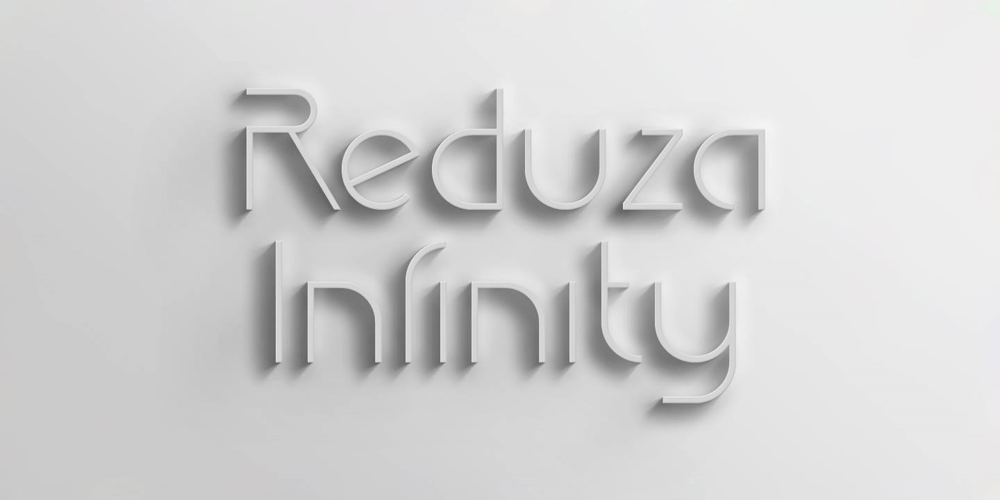
Reduza Infinity Font Family was designed by Leonhard Katschner and published by Brave Type. Reduza Infinity contains 1 styles and family package options. Reduza Infinity is a modern and futuristic font, created for you to make fancy designs. It is very useful to create movie posters or sci fi book covers. Reduza supports many languages and looks forward to be used by you.